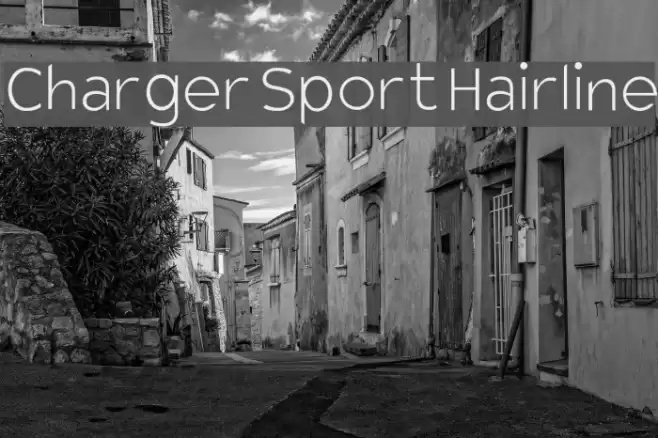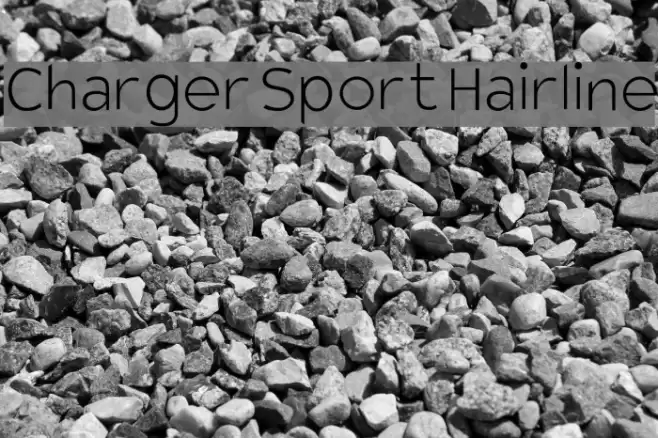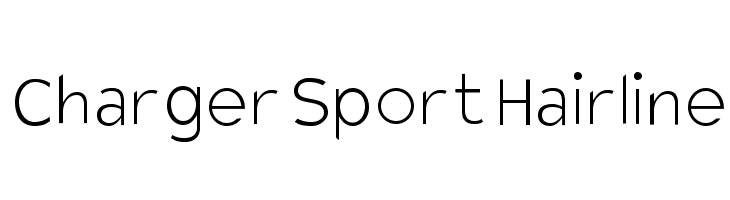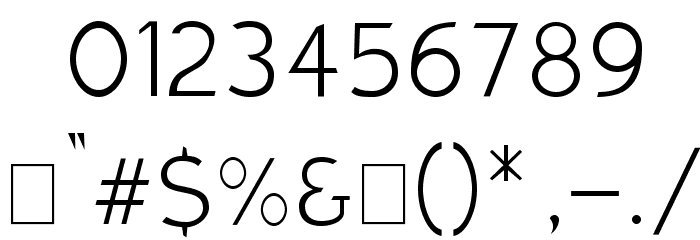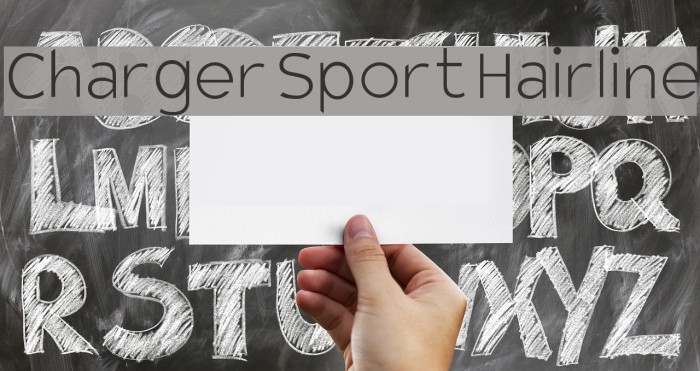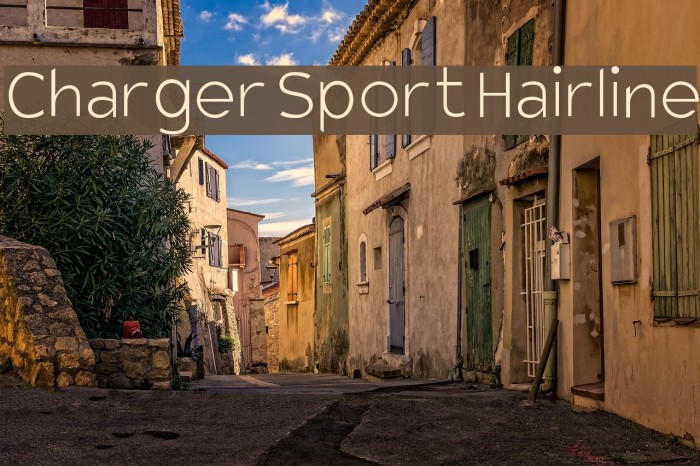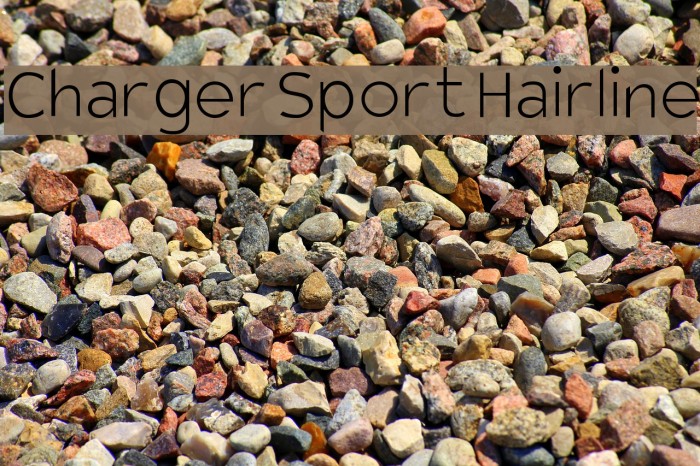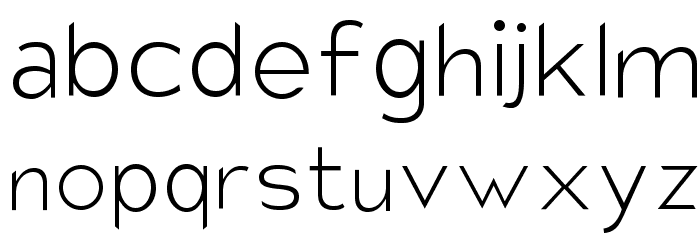
Charger Sport Hairline Font
Charger Sport Hairline Description
This font features a sleek, modern design with clean lines and a minimalist aesthetic. The characters are evenly spaced, providing a balanced and harmonious appearance. The uppercase and lowercase letters are well-proportioned, with a consistent stroke width that gives the font a uniform look. The numerals and special characters maintain the same stylistic elements, ensuring cohesion across all glyphs. This font's simplicity and elegance make it versatile for various design applications.
A sleek, modern font with clean lines and a minimalist aesthetic from Uncategorized fonts.